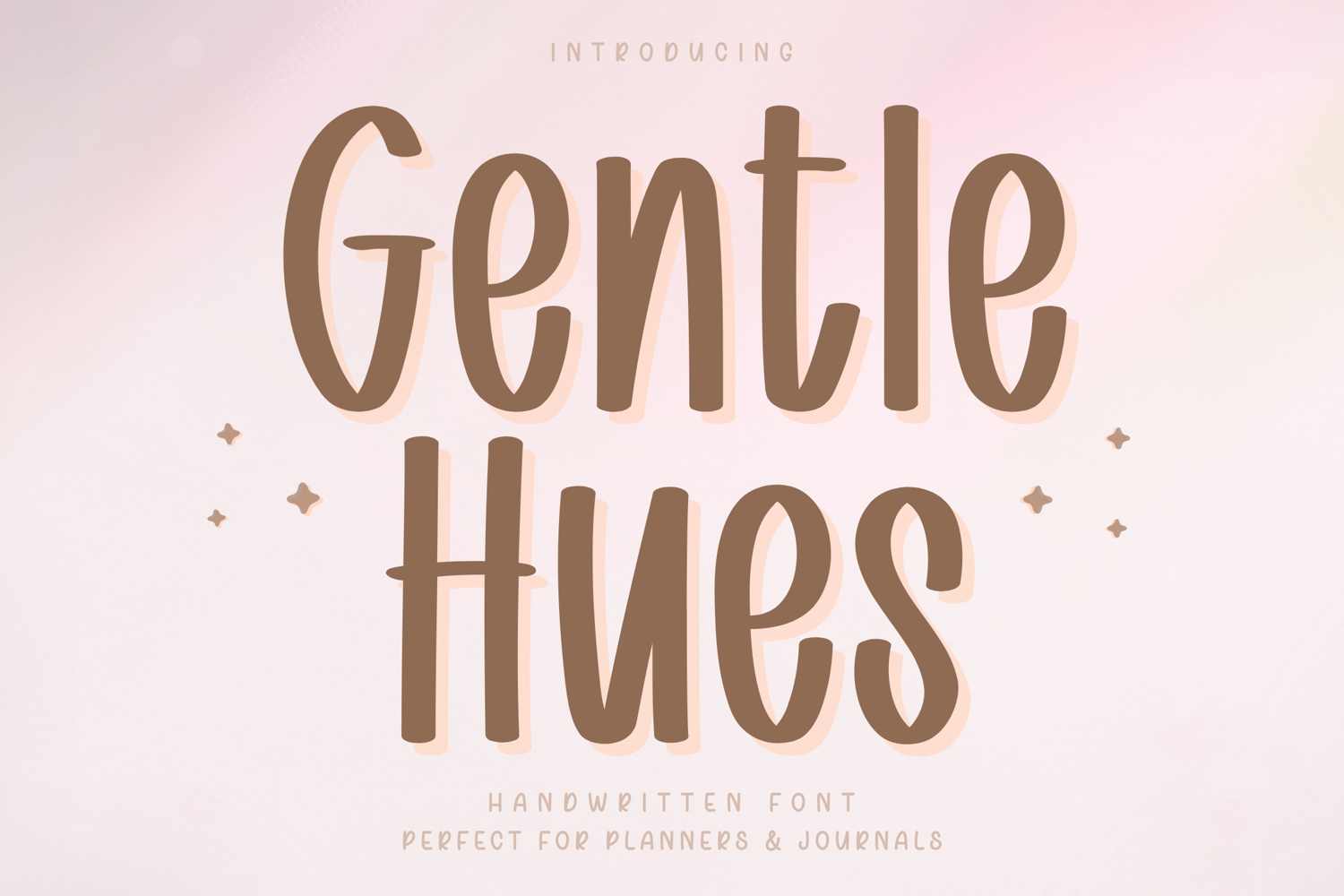
Gentle Hues - Handwritten Font
Gentle Hues – Handwritten Font
Gentle Hues is a soft and clean handwritten font designed to bring a calm and organized feel to your creative projects. With its smooth curves and simple letterforms, this font offers a natural handwritten style while maintaining excellent clarity and readability.
Carefully crafted for everyday usability, Gentle Hues performs beautifully across a variety of applications—from digital planners and journals to Cricut projects, stickers, and social media design. Its neat and consistent strokes make it especially suitable for note-taking, planning, and long-form writing.
Full set of uppercase and lowercase letters
Numerals, punctuation, and symbols
Cricut and cutting projects
Digital planners
Stickers and printable designs
Branding and logos
Social media graphics
Gentle Hues is designed with smooth, clean strokes and balanced spacing, making it easy to read and comfortable for extended use.